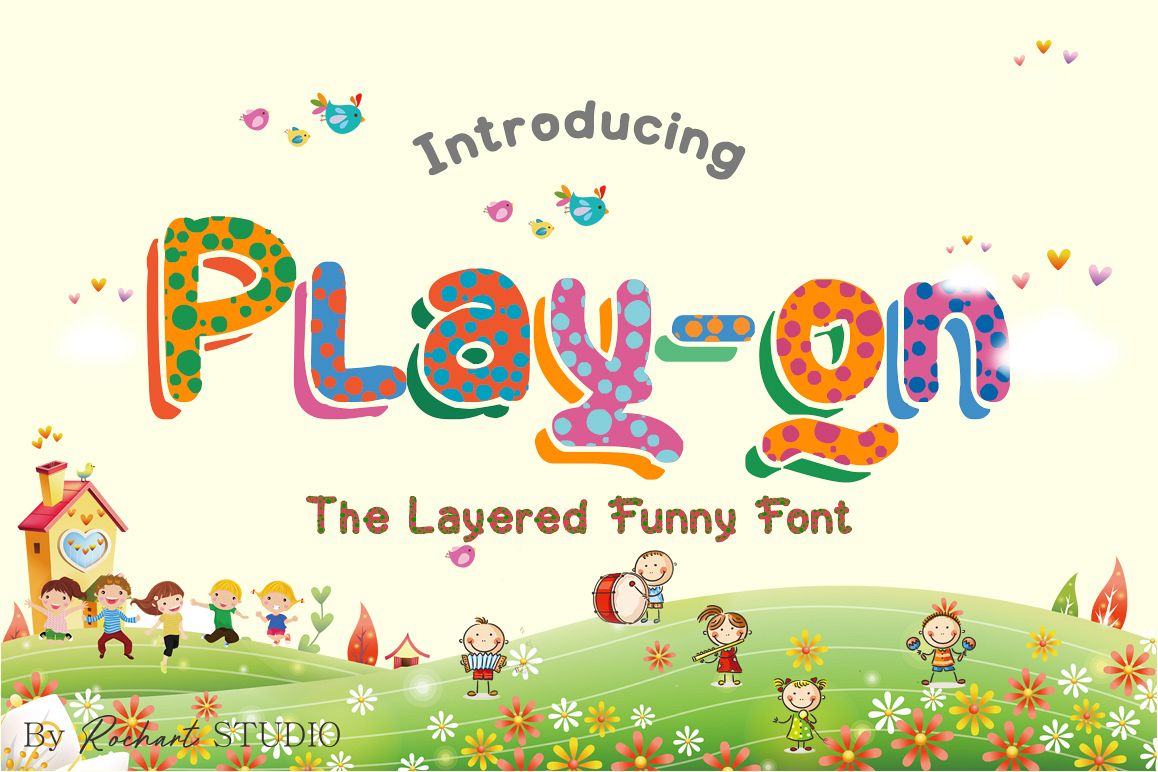
Play-on || UPDATE with Layered Font
PlayOnRegular
PlayOnShadow
PlayOndotted
Play-on layered font is a bold, fun, and bouncy font that is perfect for all your summer projects. Also included stylistic alternate for uppercase and lowercase
Play-on layered font Included:
- Stylistic alternate Uppercase
- Stylistic alternate Lowercase
- Numbers & Symbols